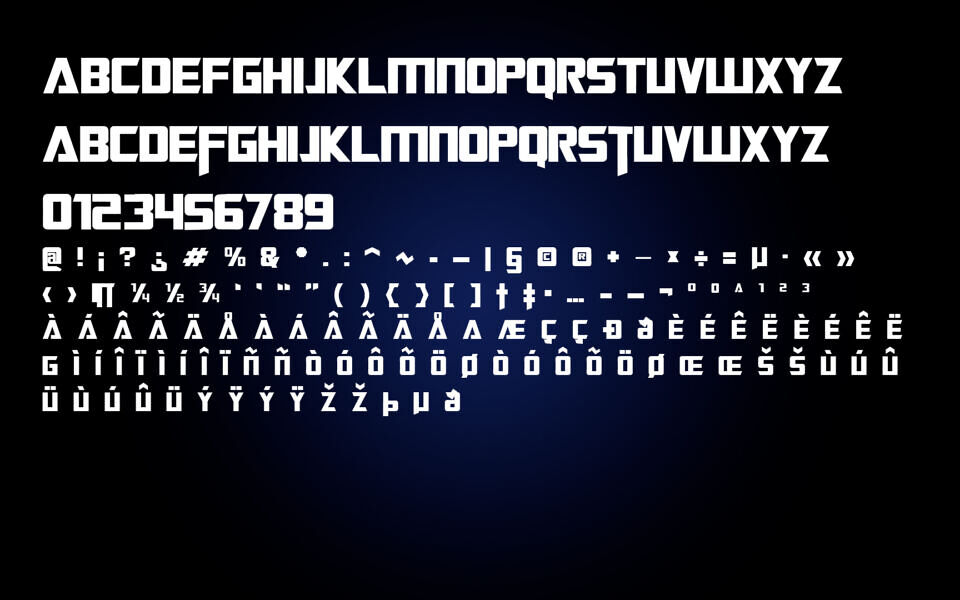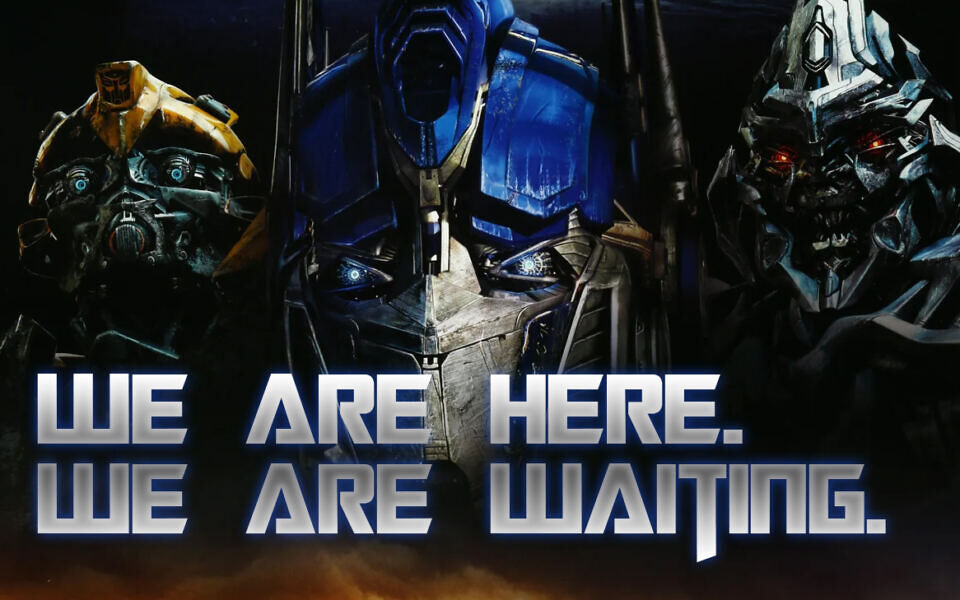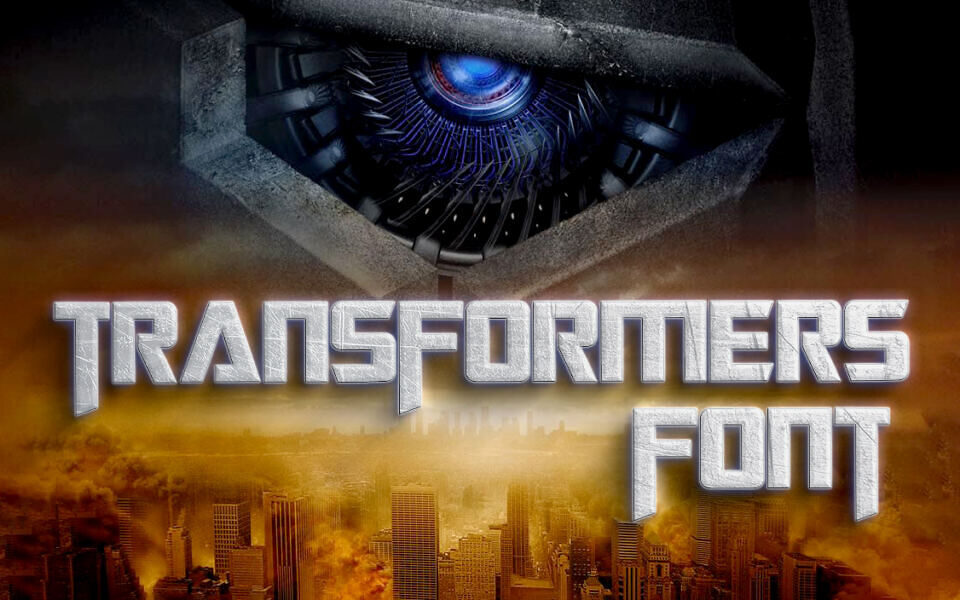
Transformers Movie Logo Font
“Transformers Movie” is a bold sci-fi display font inspired by the typography used in the live-action Transformers films. Featuring sharp angles, geometric shapes, and a futuristic industrial style, it delivers a powerful, mechanical look.
Ideal for logos, posters, and tech-themed designs, its striking uppercase characters create a strong visual impact while maintaining a cohesive and modern aesthetic.